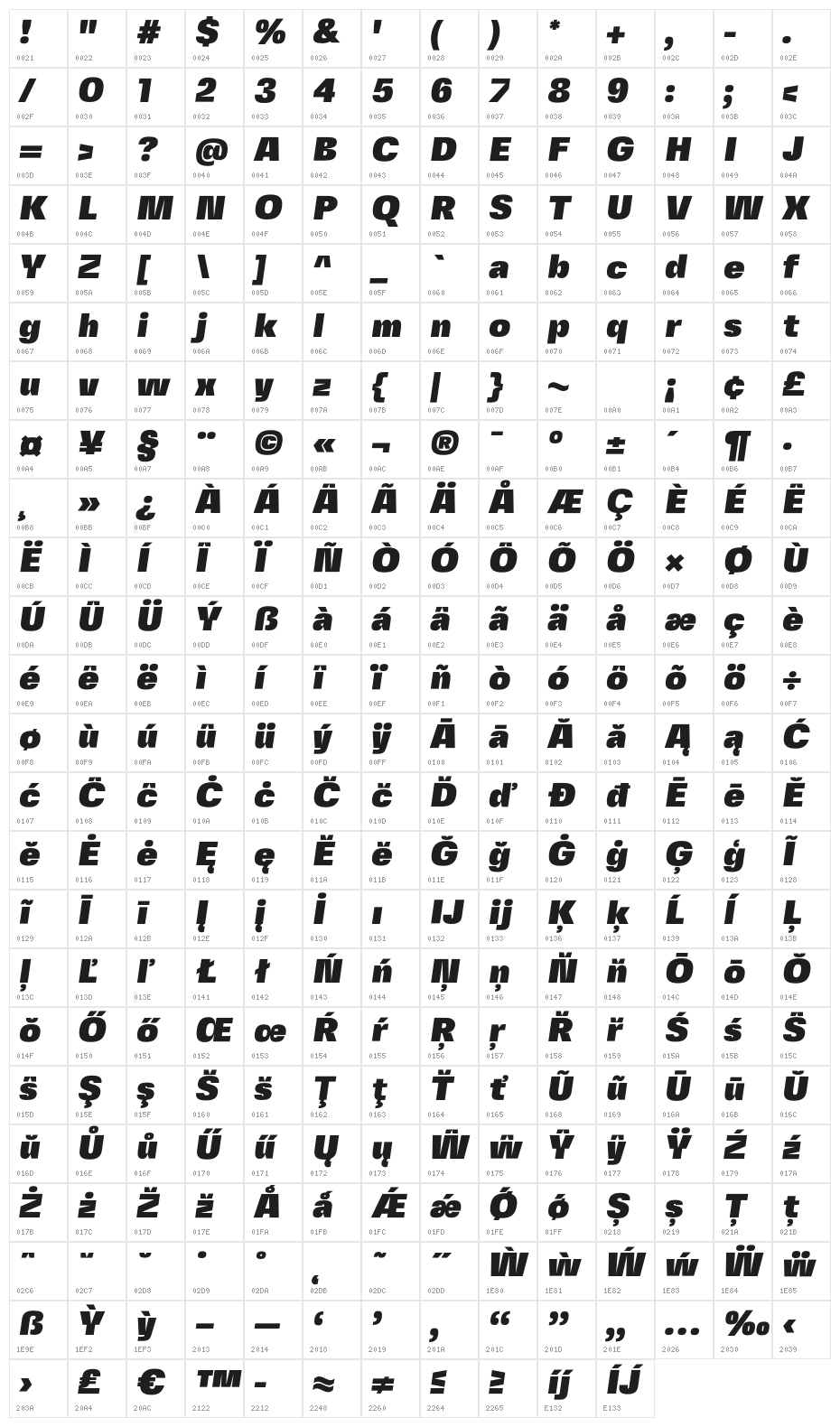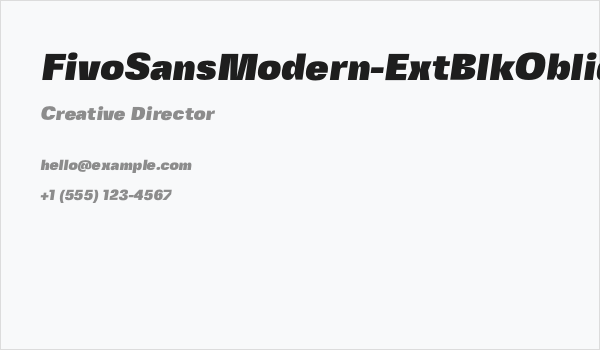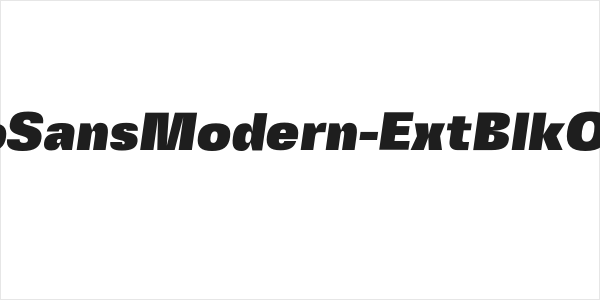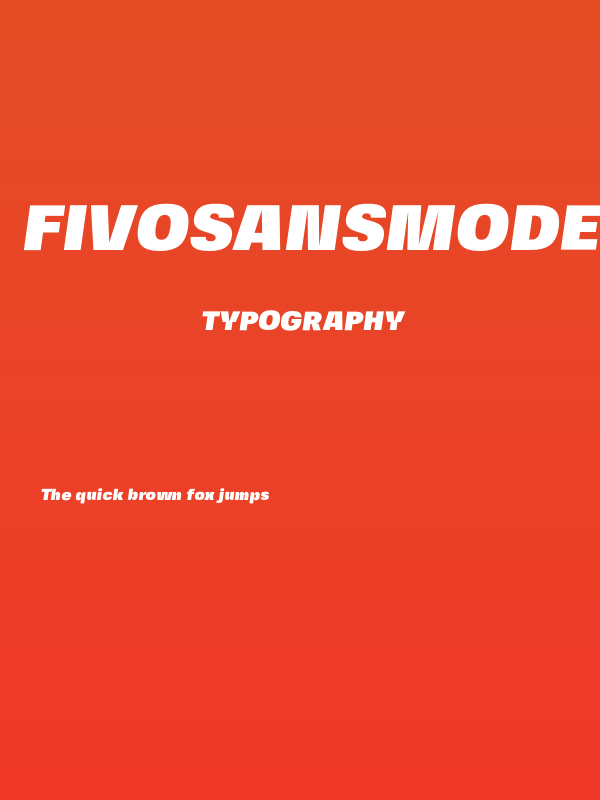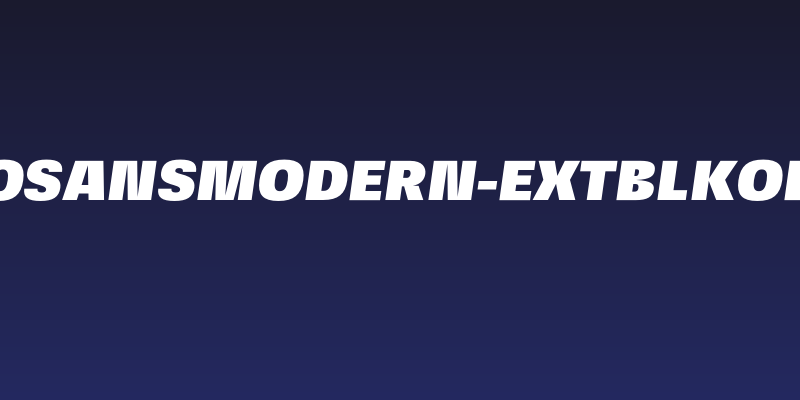
FivoSansModern-ExtBlkObliq Font
FivoSansModern-ExtBlkObliq Description
This font exhibits a bold and dynamic presence with its extended black weight and oblique style. The characters are robust and impactful, featuring a modern sans-serif design that emphasizes clarity and strength. The uppercase letters are particularly striking, with a strong geometric influence that enhances their visual appeal. Lowercase letters maintain the same boldness, ensuring consistency across text. Numbers and special characters are equally bold, making them suitable for attention-grabbing displays. The overall design is sleek and contemporary, ideal for projects that require a powerful and modern aesthetic.
| Proposed Projects | Ideal for branding, advertising, headlines, and any project requiring a strong visual impact. |